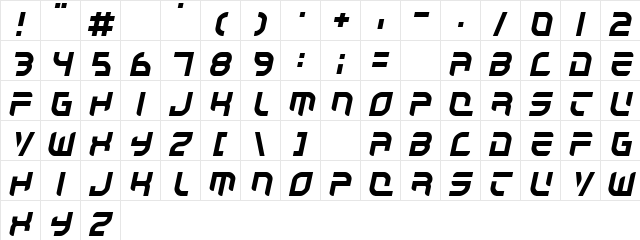
Autobahn Regular Free Font
Autobahn Regular
Design Context for Autobahn
Autobahn is a composed and adaptable typeface that performs quietly and consistently across a wide range of design contexts.
Pro Tip: Use Autobahn in both headline and body roles to test its range before committing to a single application.